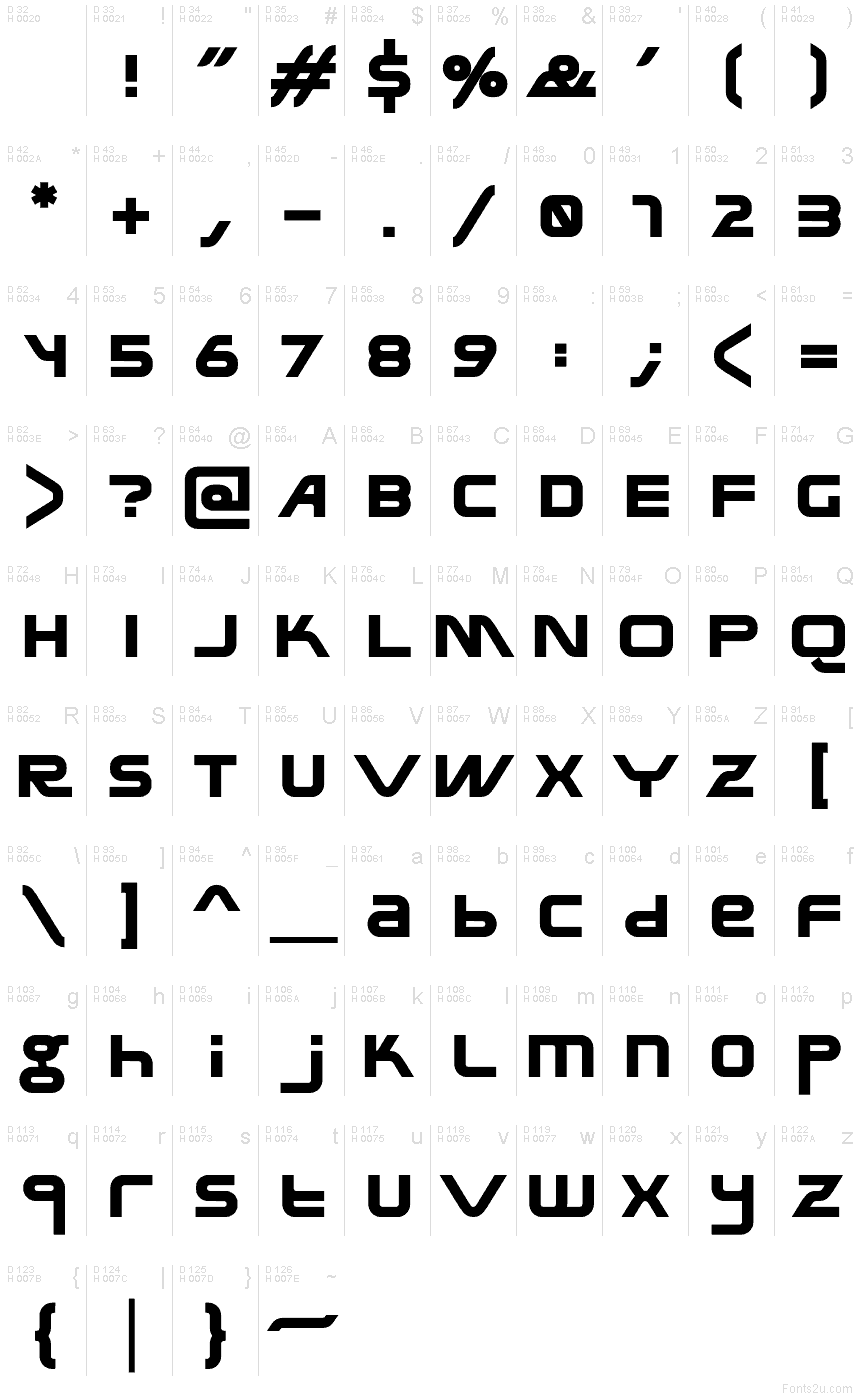
ONIMOD
Onimod font by Marcin Gajos is a free techno display typeface that moves like a soft-edged circuit. Built from rounded-square strokes and continuous bends, its letters feel tubular and engineered, with tight rhythm and generous counters that keep the forms readable even when packed together. The look is glossy and precise—think polished plastic meeting brushed aluminum.
Using Onimod, headlines snap with a futuristic pulse that shines on esports branding, sci‑fi posters, gadget packaging, festival wordmarks, and tech event badges. This free font loves big sizes and a touch of extra tracking for air. Pair it with a neutral grotesk for body copy to let the bold forms lead without shouting.
TRI / DI / ONIMOD Typeface
+ DISPLAY
+ 3 VARIANTS